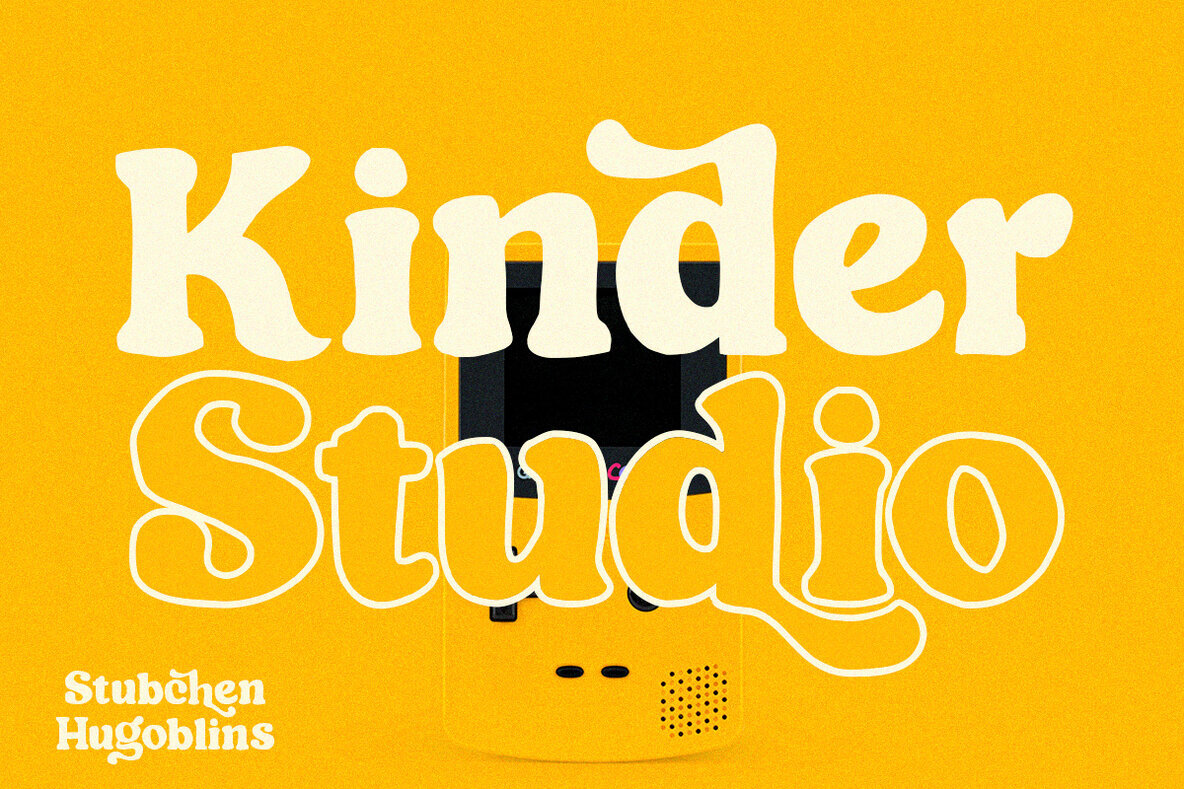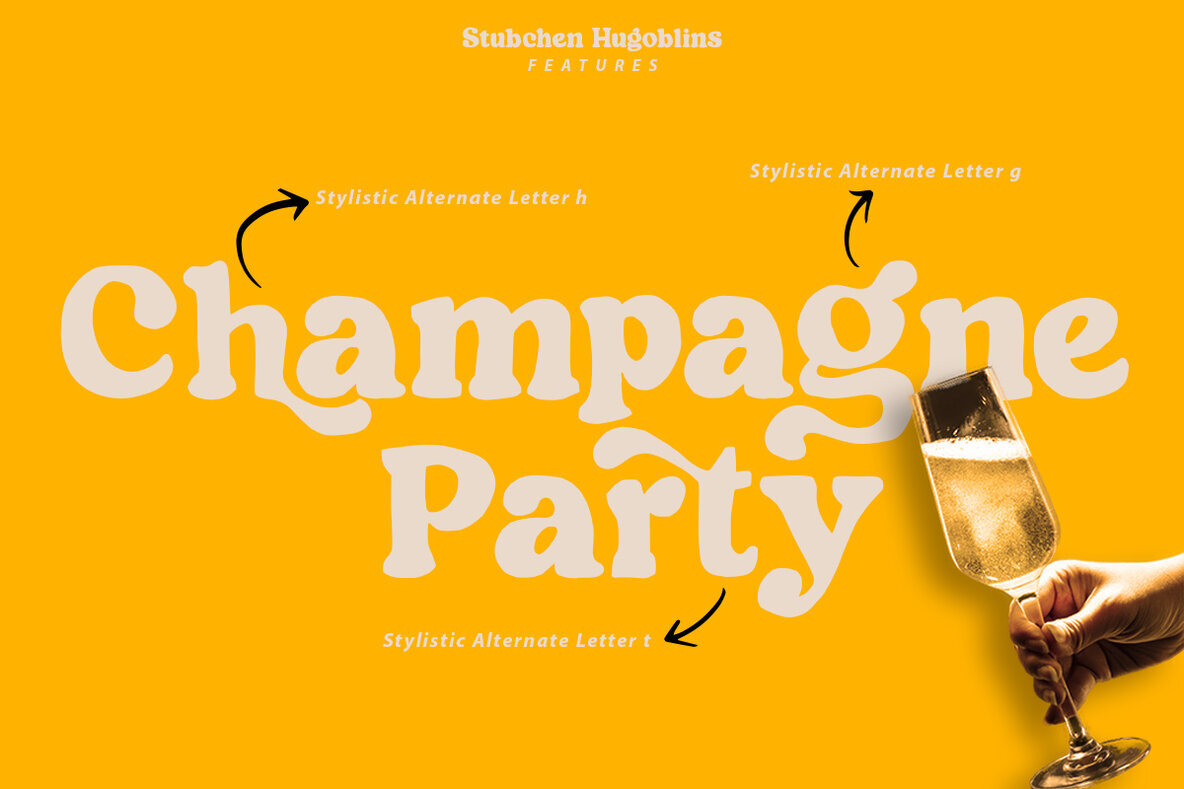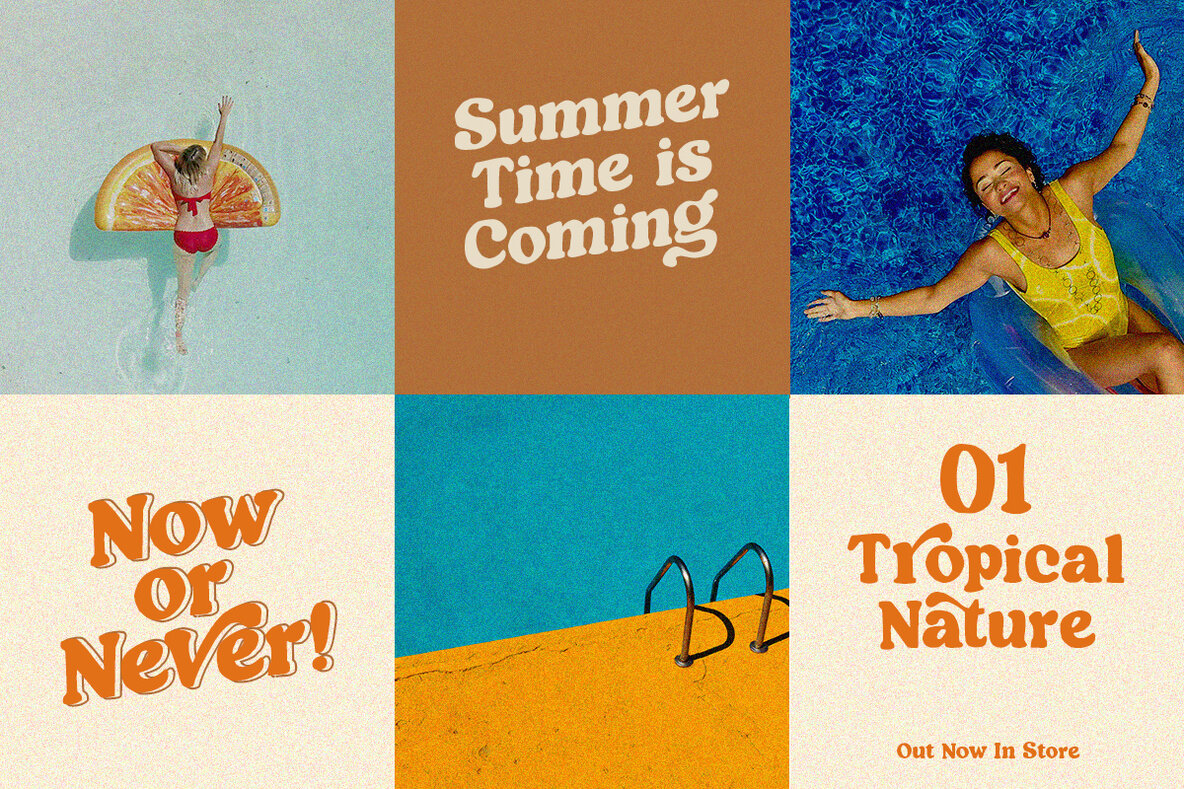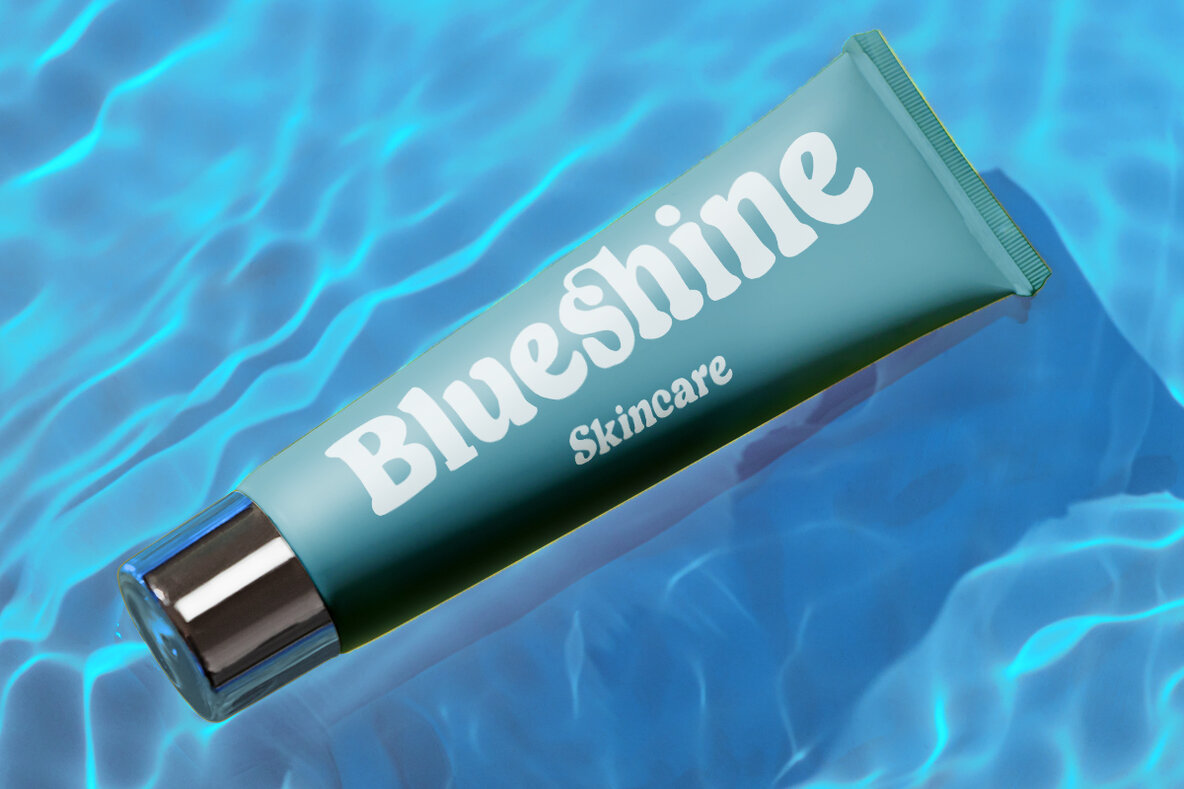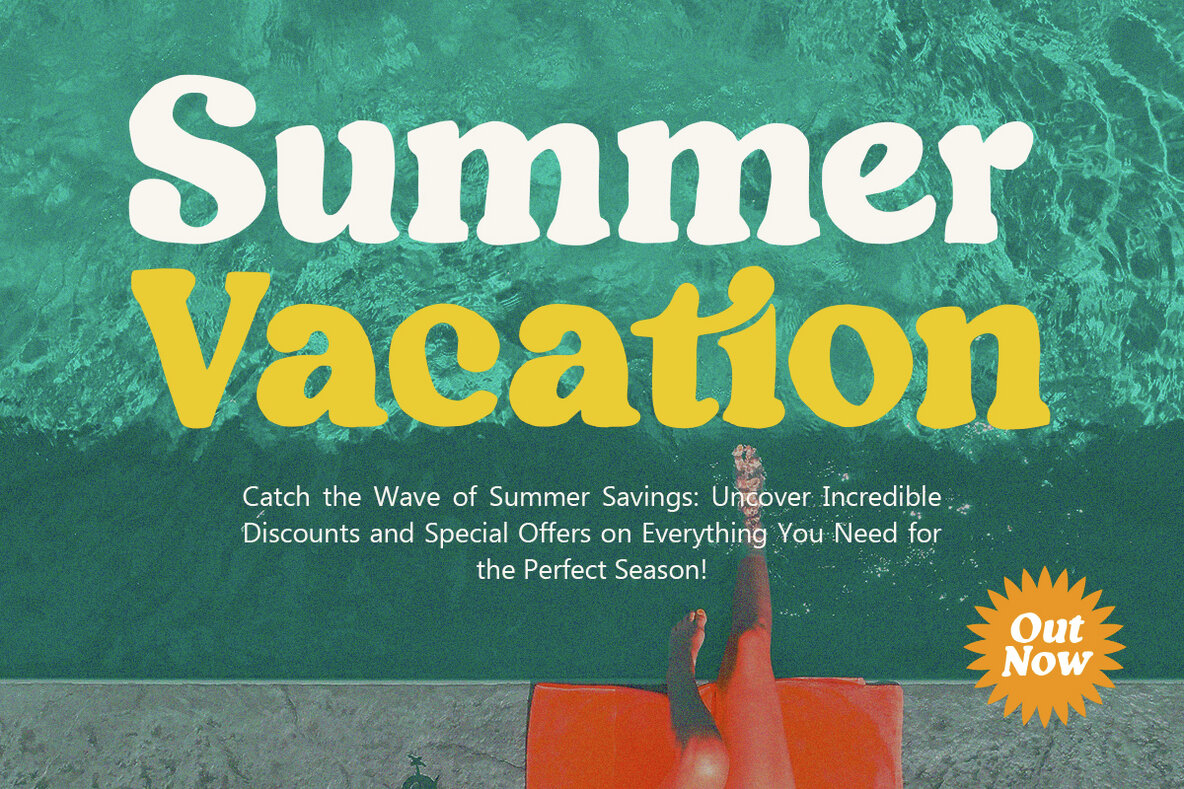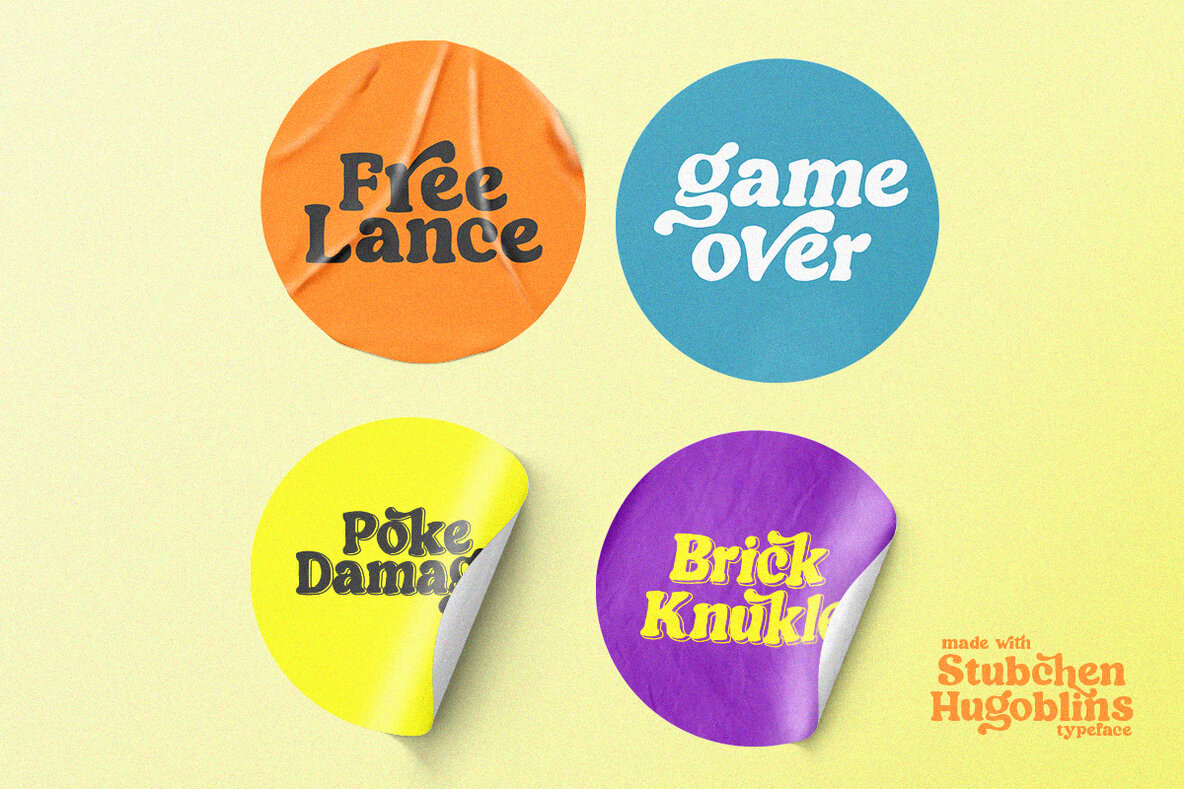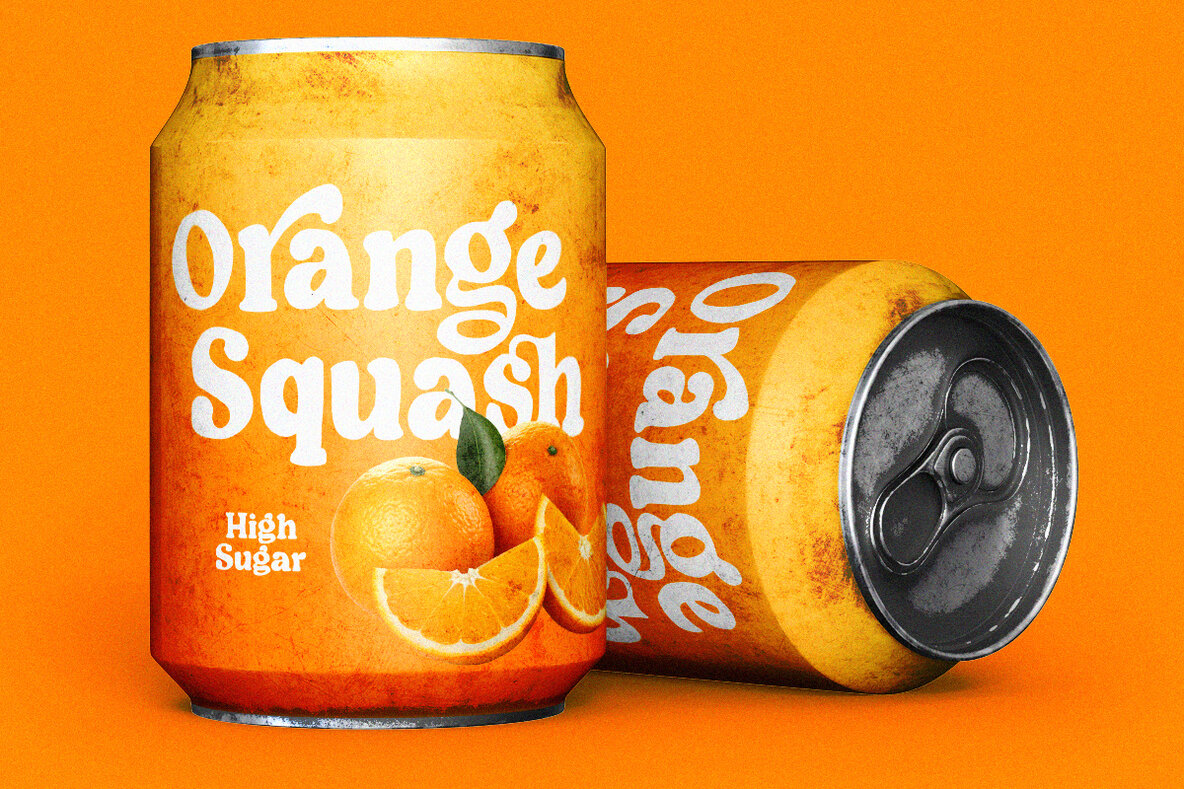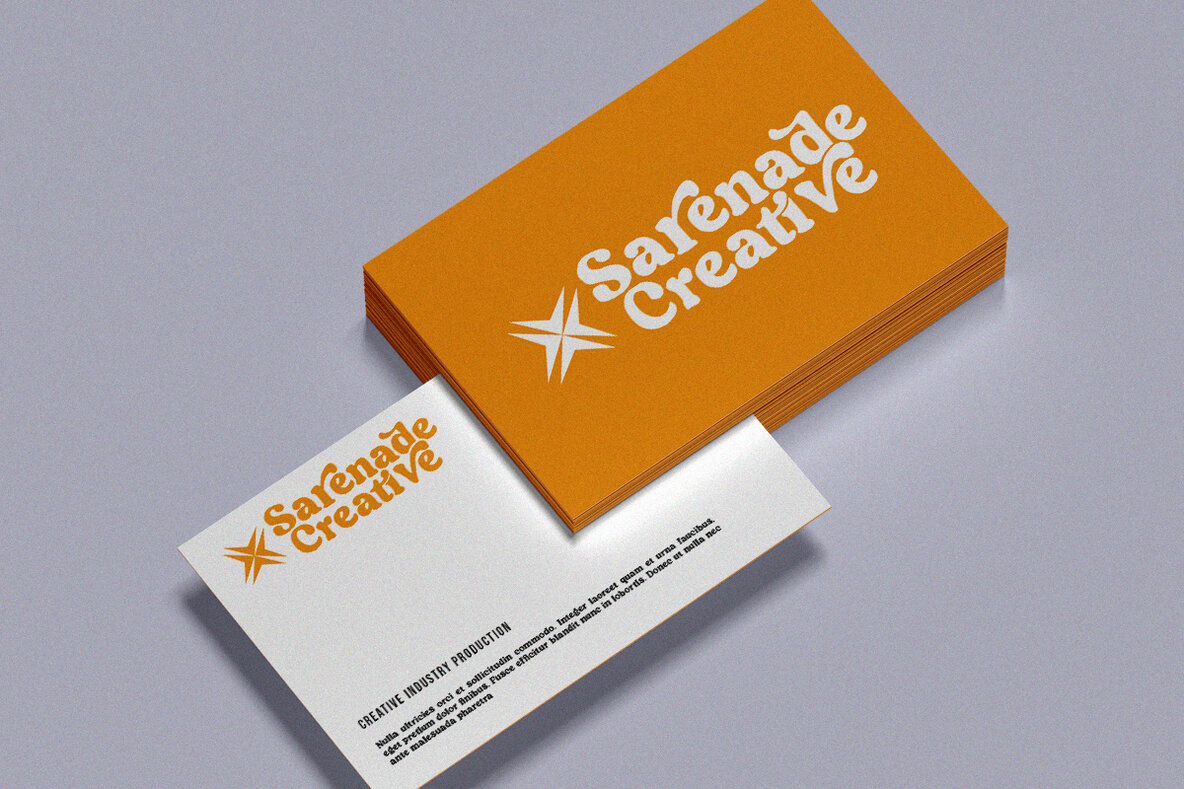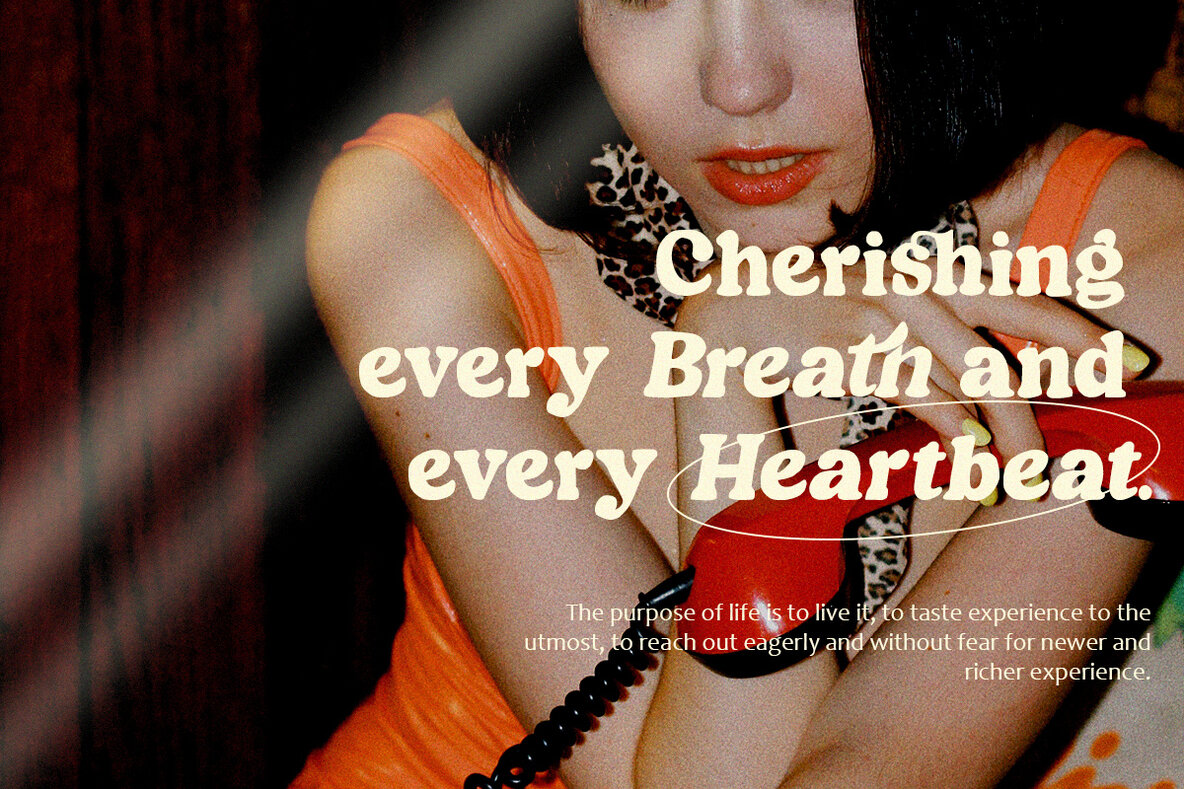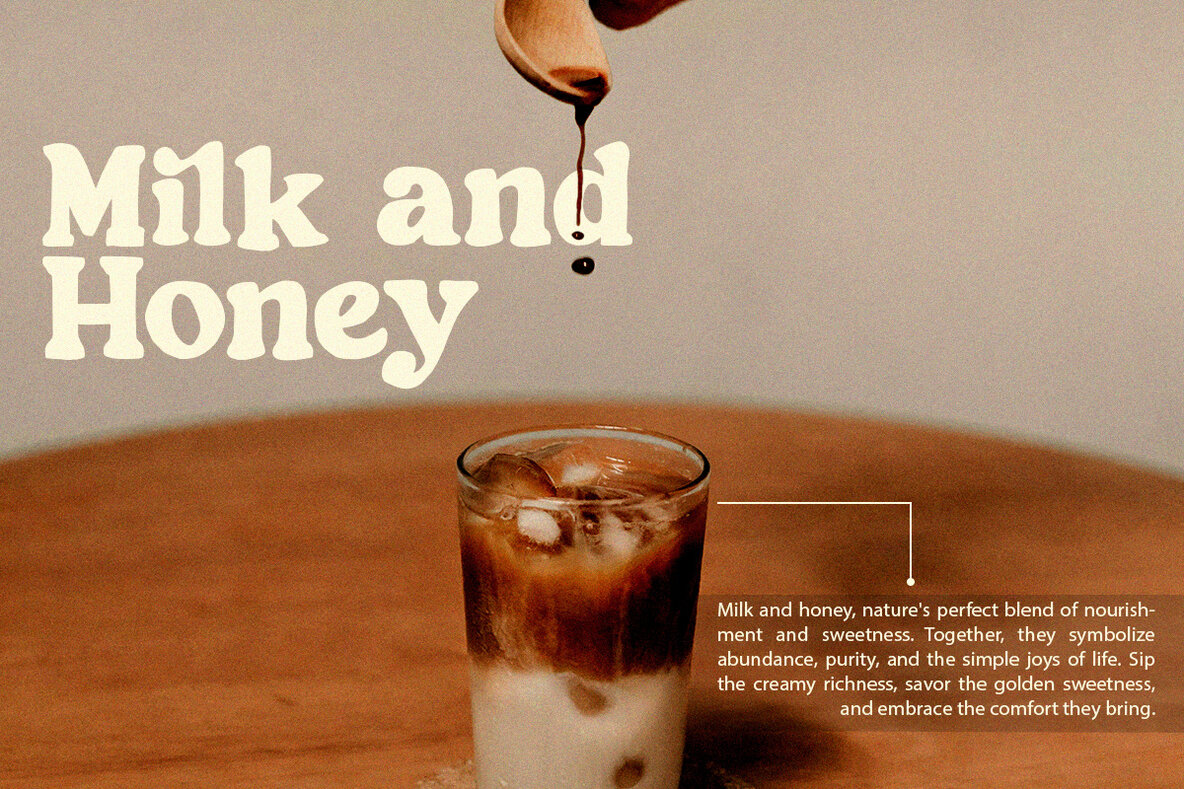
Stubchen Hugoblins Font
Stubchen Hugoblins is a unique hand brush font crafted with brush and ink. It comes in four versatile styles: Regular, Italic, Outline, and Italic Outline. This typeface is perfect for bold watercolor designs and handwritten themes, making it ideal for blog titles, posters, wedding elements, t-shirts, covers, business cards, greeting cards, branding, and more.
This font includes a comprehensive set of characters: uppercase, lowercase, ligatures, alternates, punctuation, numbers, and multilingual support, providing designers with flexibility and creativity for a wide range of projects. Whether for digital or print, Stubchen Hugoblins adds a distinctive and artistic touch to any design.